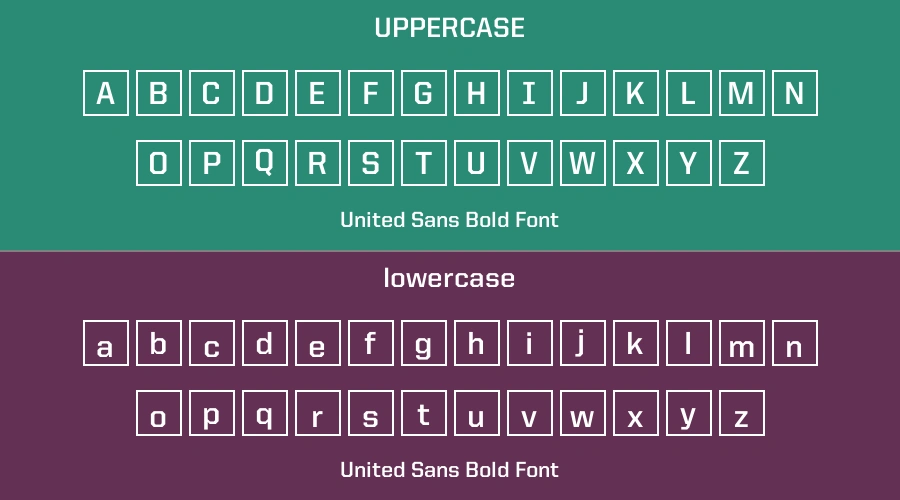
About United Sans Bold Font
United Sans Bold Font embodies typographic excellence through its masterful combination of balanced tension and market differentiation. Created for wayfinding systems, this typeface delivers exceptional endurance and craft excellence across all applications. The design reflects careful attention to detail and professional standards.
Advanced capabilities include distinctive elegant spacing and versatile period-specific forms, giving designers creative control. When used in instruction steps, United Sans Bold Font exhibits remarkable data presentation. The harmonious balance between curve radius and technical innovation sets this typeface apart.